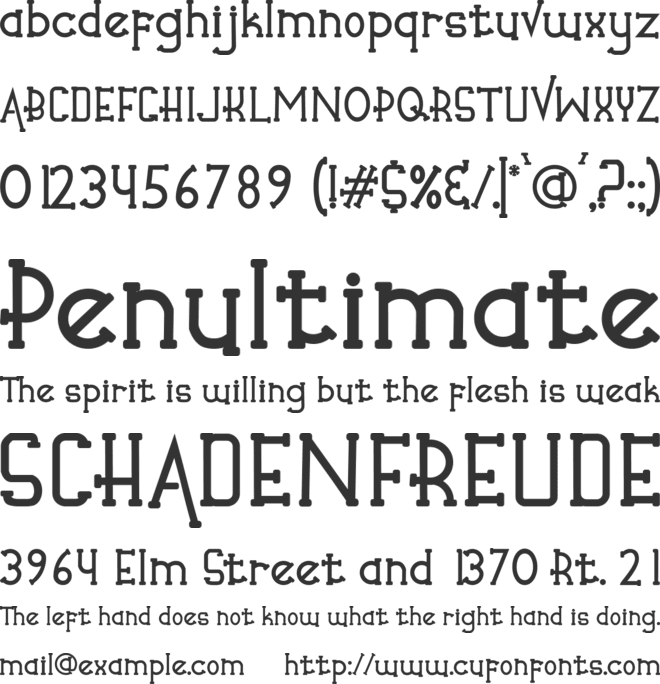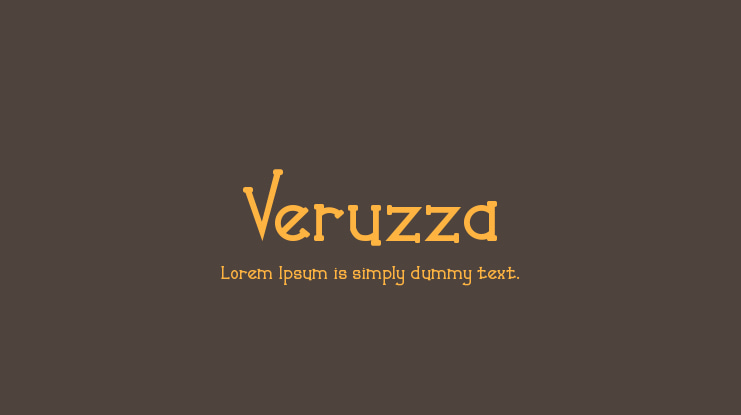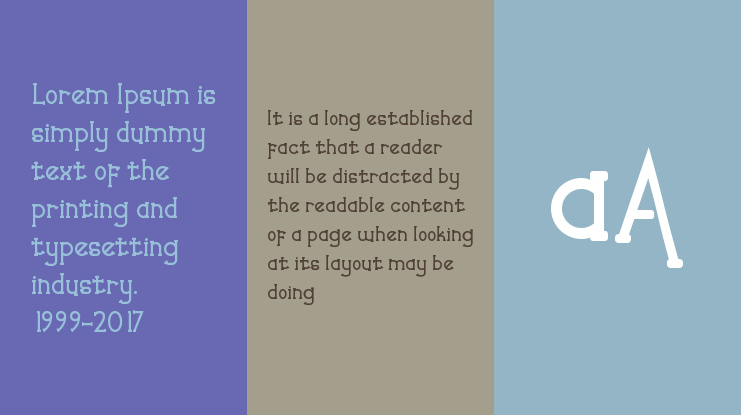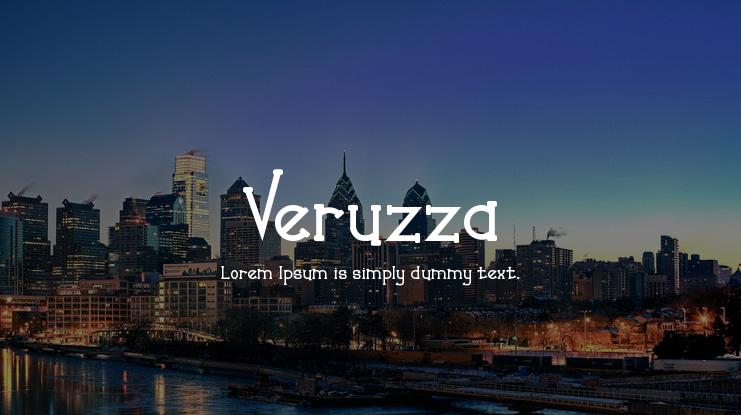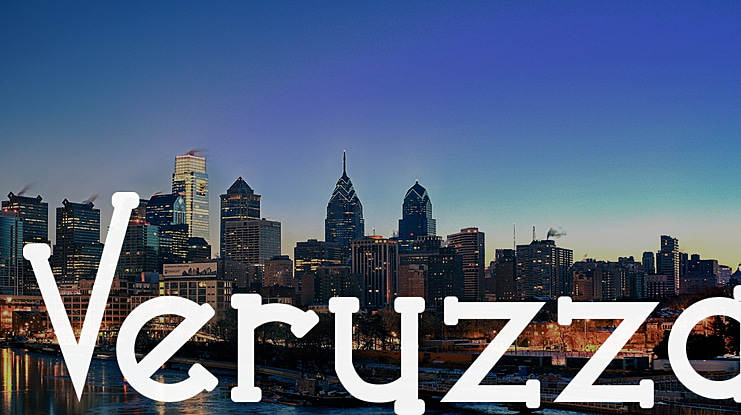
Veruzza Font Family
Veruzza is a Modern Serif font featuring straight line, with regular, italic and holow touch, it offers for all characthers of english language, multilingual support also. Standard punctuation glyphs are included. this font is perfectly suited for traditional media and web. great for crafters, for making project. compatible with tools such as Photoshop, Corel etc. its playfulness make it great for creative project, be it inspirational wall posters or for communicating your brand. with otf. ttf. woff. woff2. format